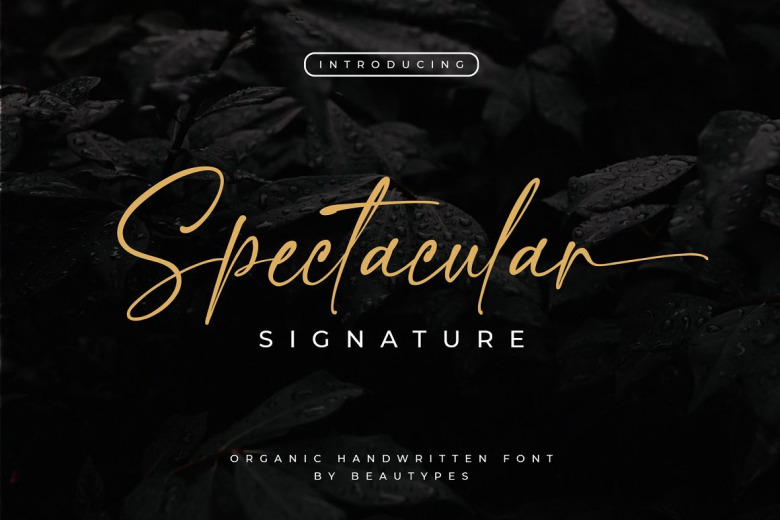
Spectacular Font
Spectacular is a stylish handwritten signature script font with a natural and clean flow. Made from font designer named Beautypes. It’s an organic font that is suitable for branding, signature, wedding invitation, promotion, product packaging, and other needs. It is an excellent option for displays and logotype works.
Spectacular Signature Script Font